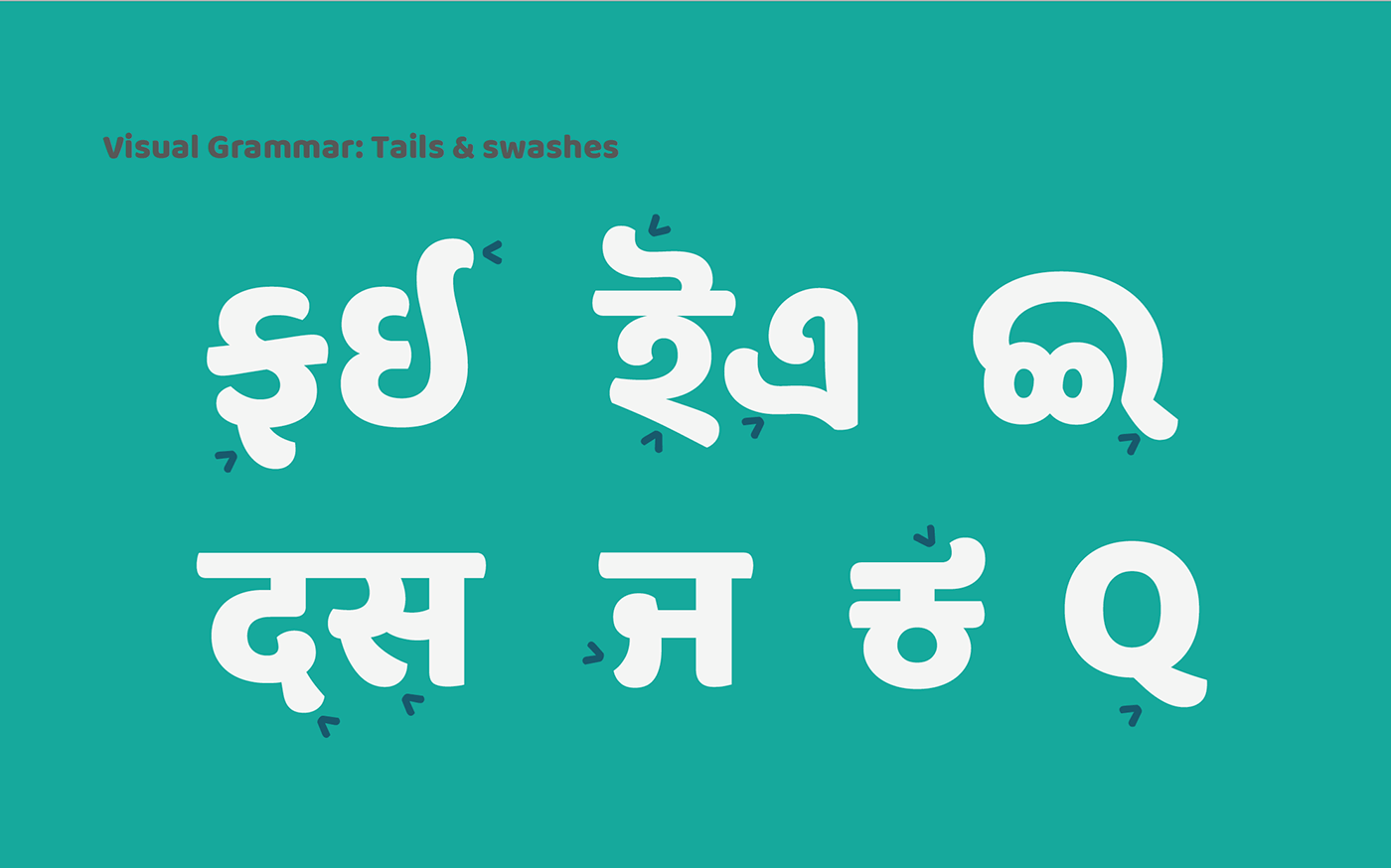
Baloo Tamma Font Family Free Download. This heavy spurless design has already. Size default small large preview.
The baloo tamma 2 regular font is a great choice to increase the prominence in your project. The baloo tamma font is a great choice to increase the prominence in your project. About baloo tamma 2 font family download.
Although The Typography Is Traditional, The Basic Elements Are Great.
Baloo tamma 2 a perfect blend of pointy paws in a coat of fur, baloo has a subtle tinge of playfulness and all the bare necessities of type. Available in nine indian scripts along. Maisfontes the biggest repository of.
This unque and elegant font. A perfect blend of pointy paws in a coat of fur, baloo is an affable display typeface by ek type. The baloo tamma font is a great choice to increase the prominence in your project.
Available In Ten Indian Scripts Along With A Latin Counterpart, The Family Is.
Baloo font family is an affable display typeface by ek type. About baloo tamma 2 font family download. Although the typography is traditional, the basic elements are great.
Baloo Tamma 2 Font Family.